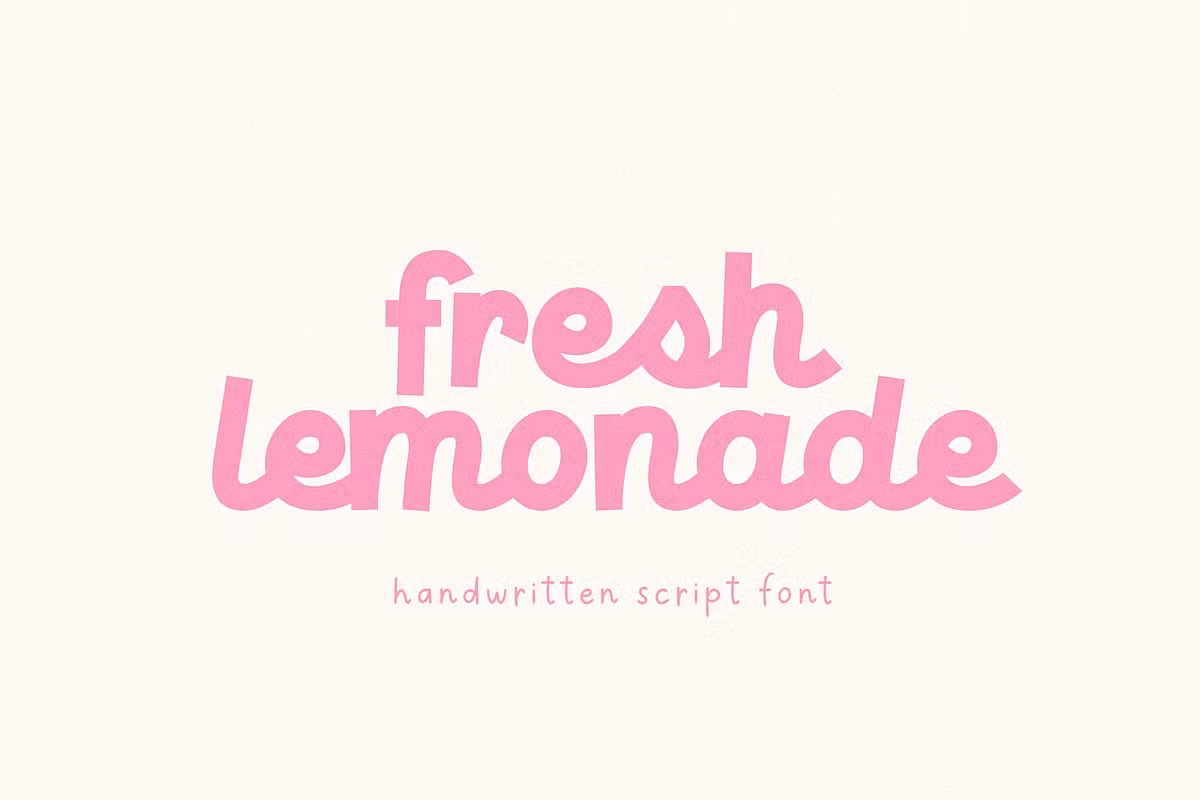
The Fresh Lemonade | Script Font Free Download is a fun, vibrant, and playful script typeface designed to bring a fresh and energetic feel to your designs. Perfect for branding, social media graphics, invitations, product packaging, and any project that needs a cheerful, hand-lettered touch, this font adds personality and warmth.
With its smooth curves and casual flow, Fresh Lemonade is ideal for creative, informal designs. It includes uppercase and lowercase letters, numbers, punctuation, and multilingual support, making it versatile for a wide range of applications.